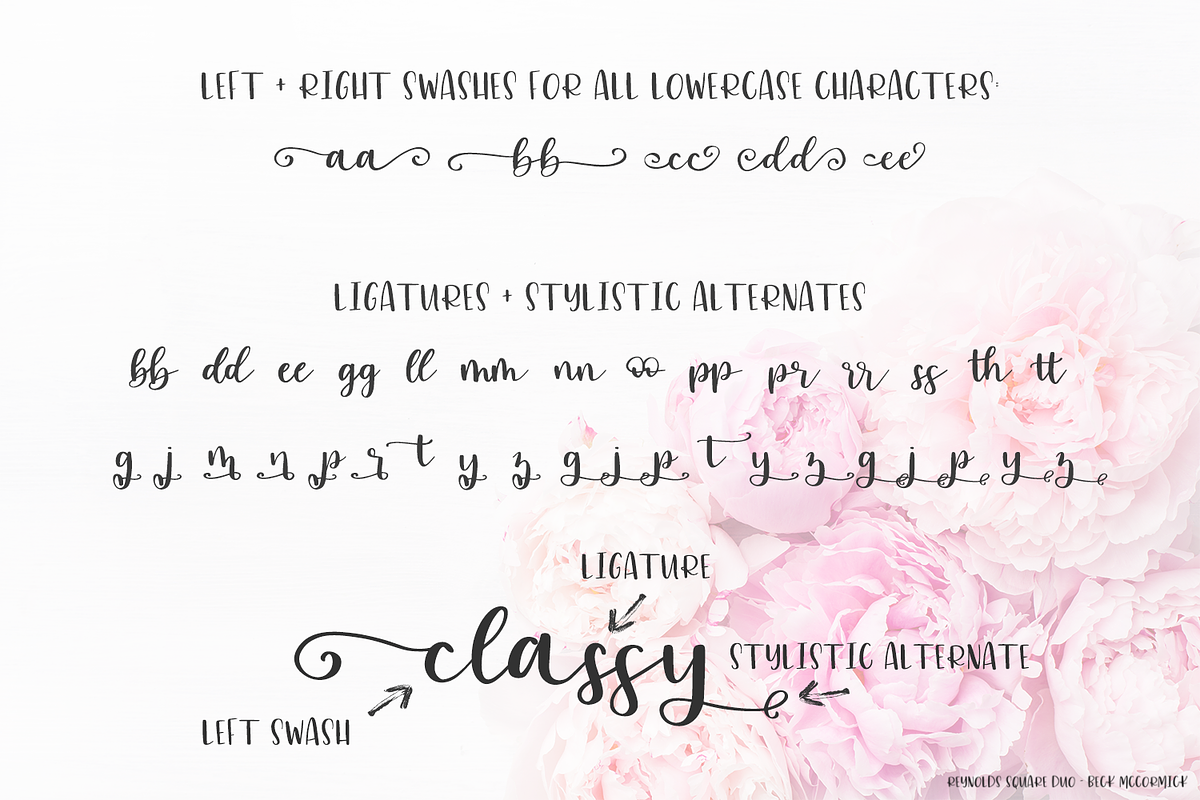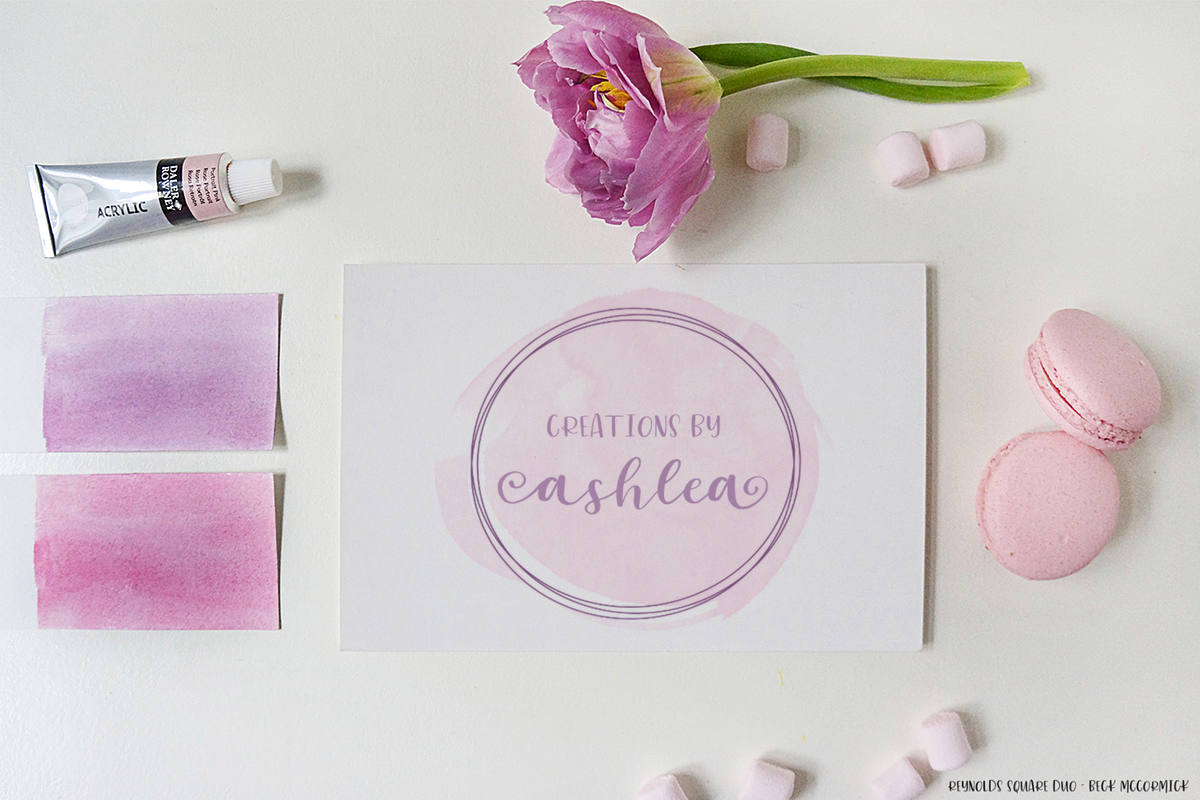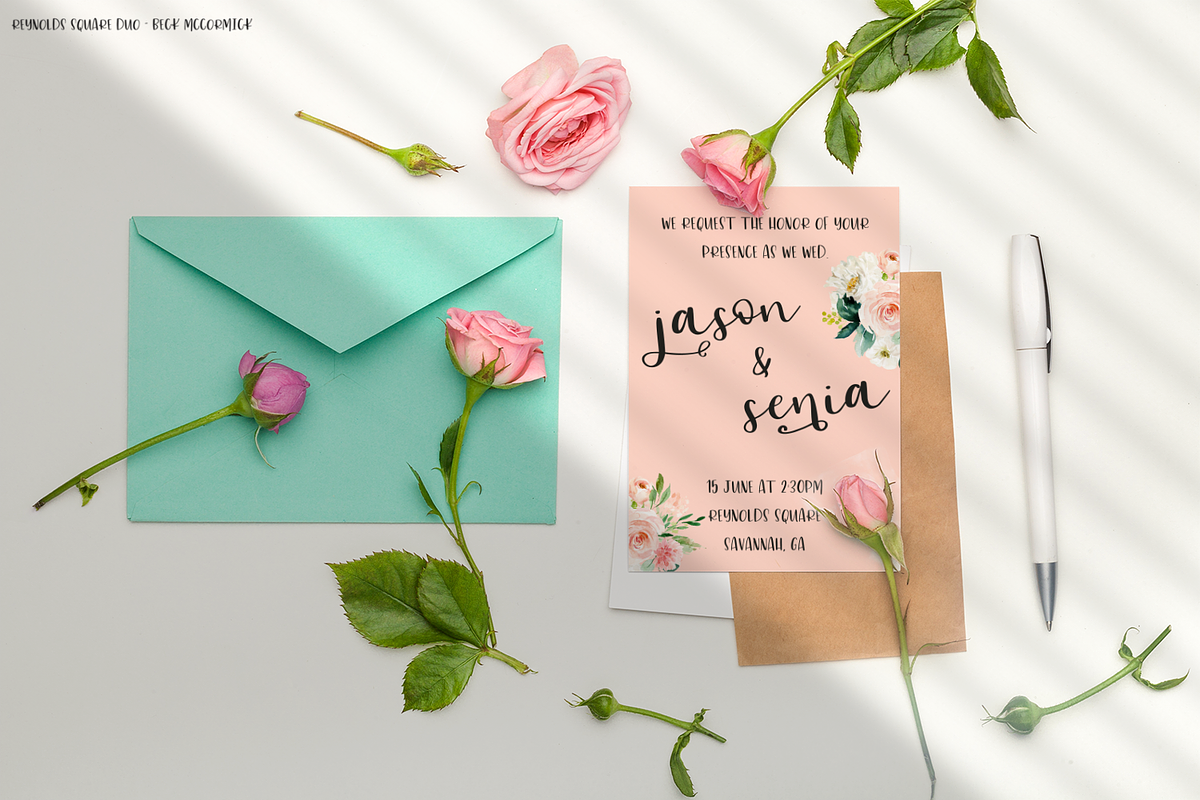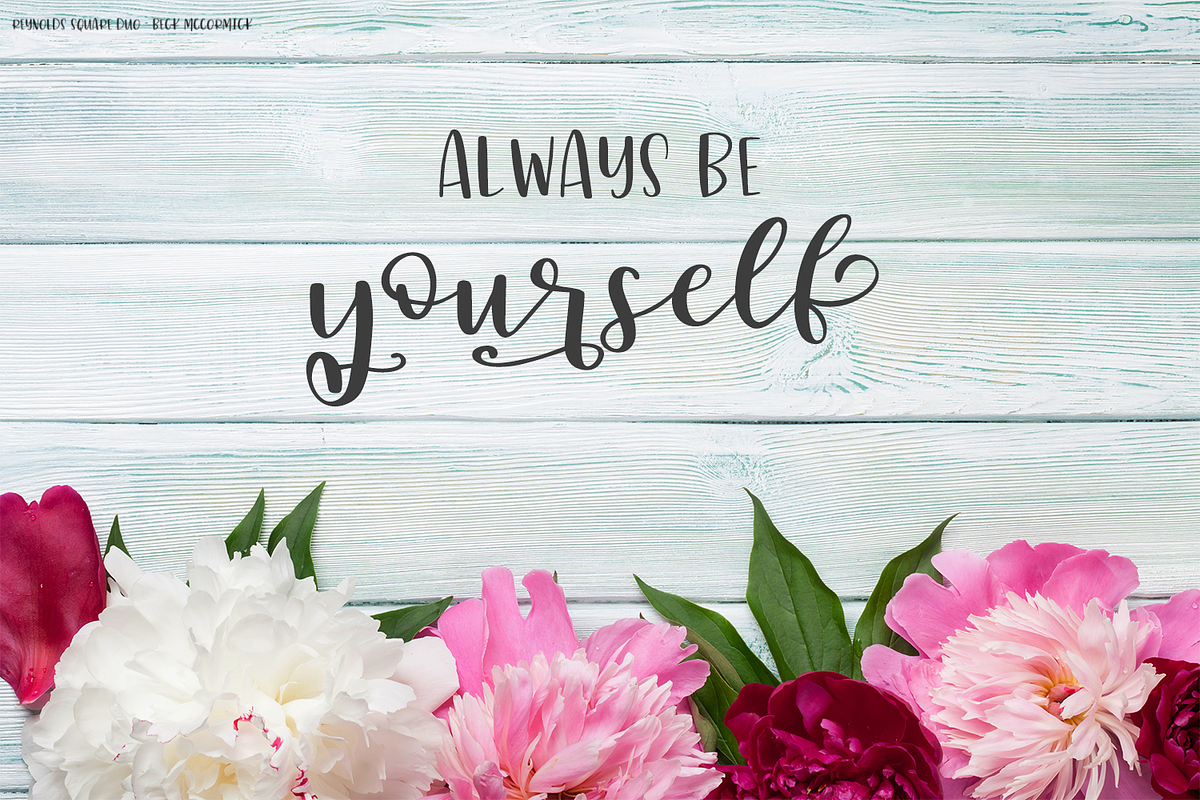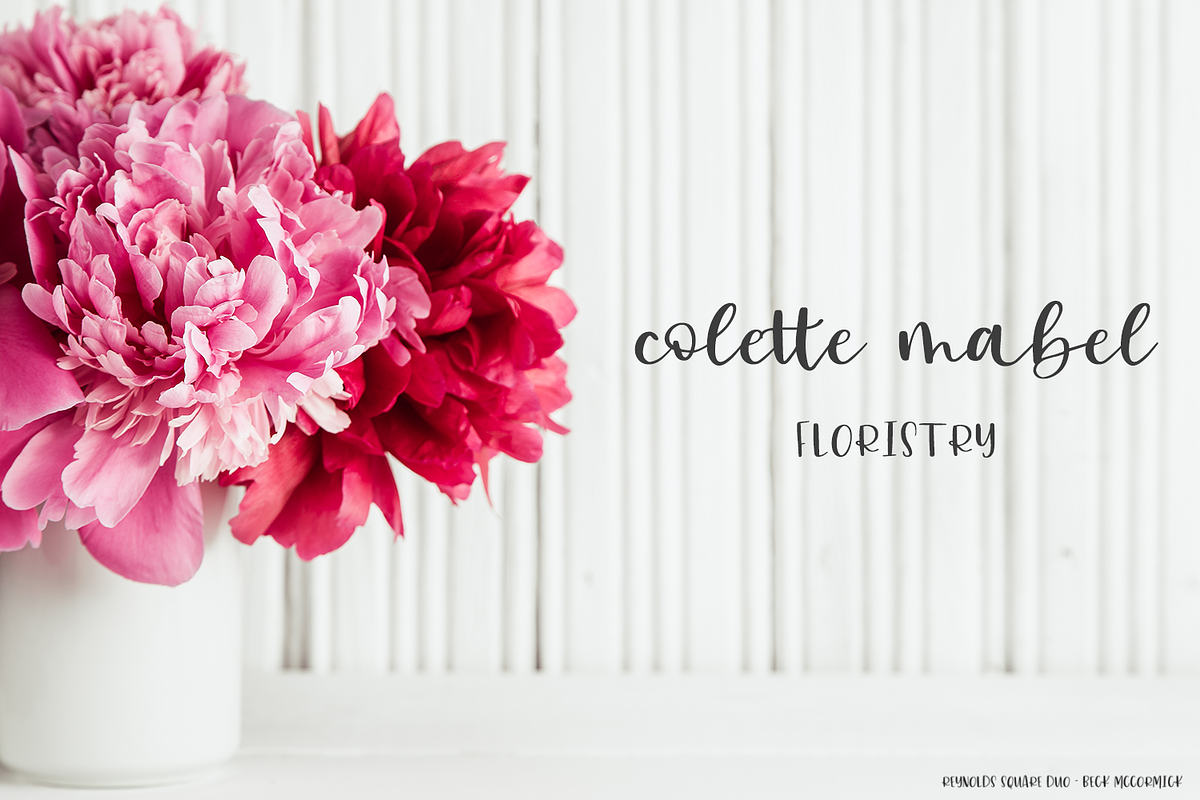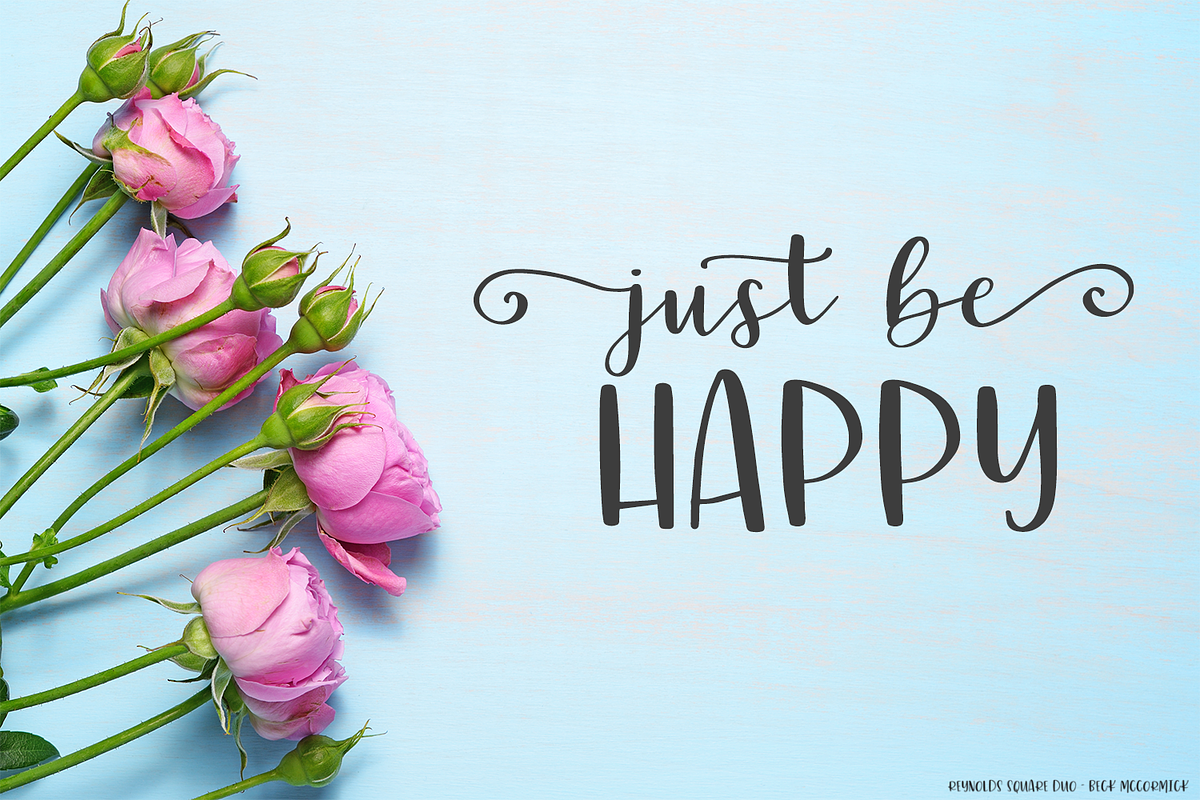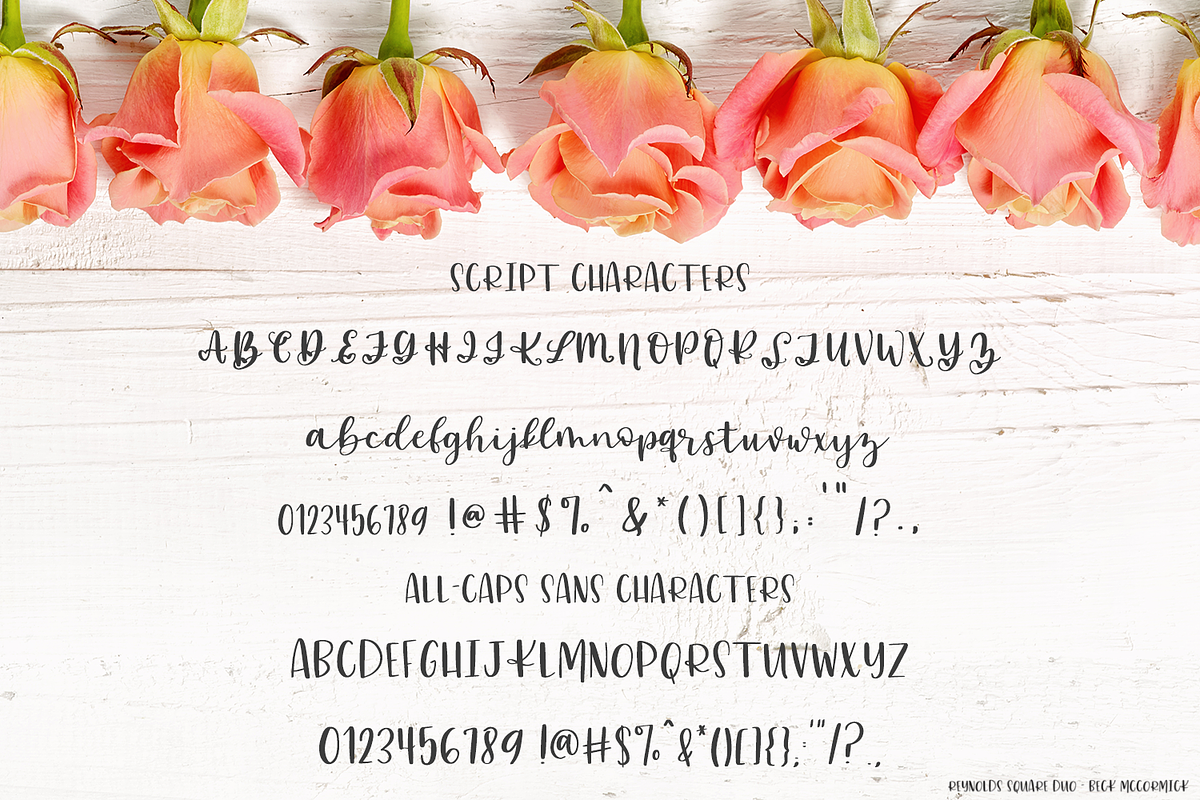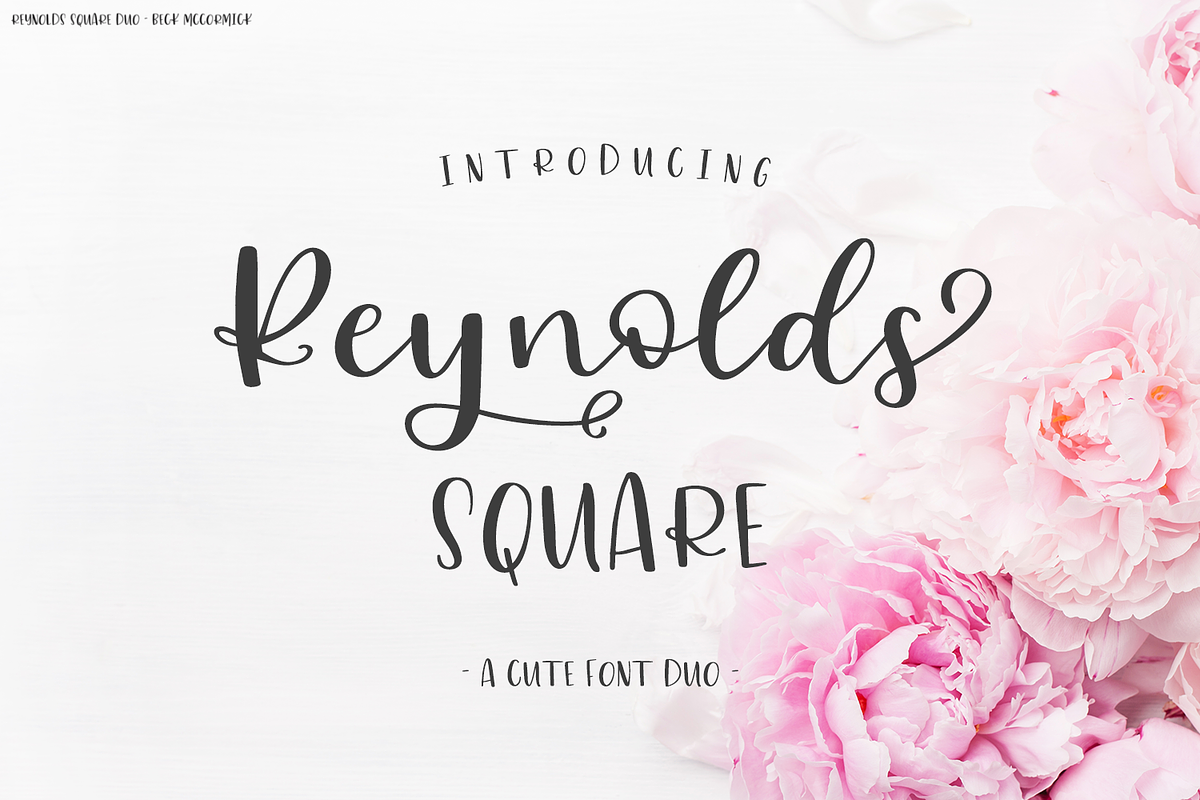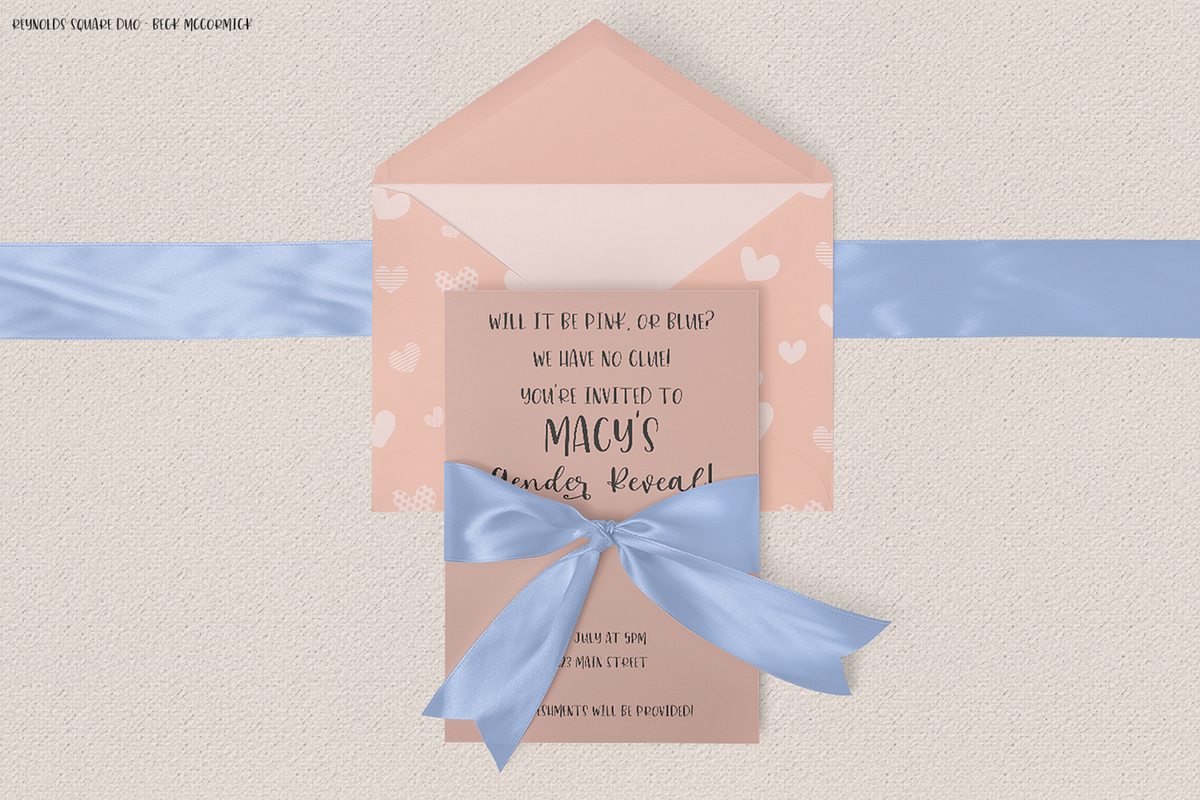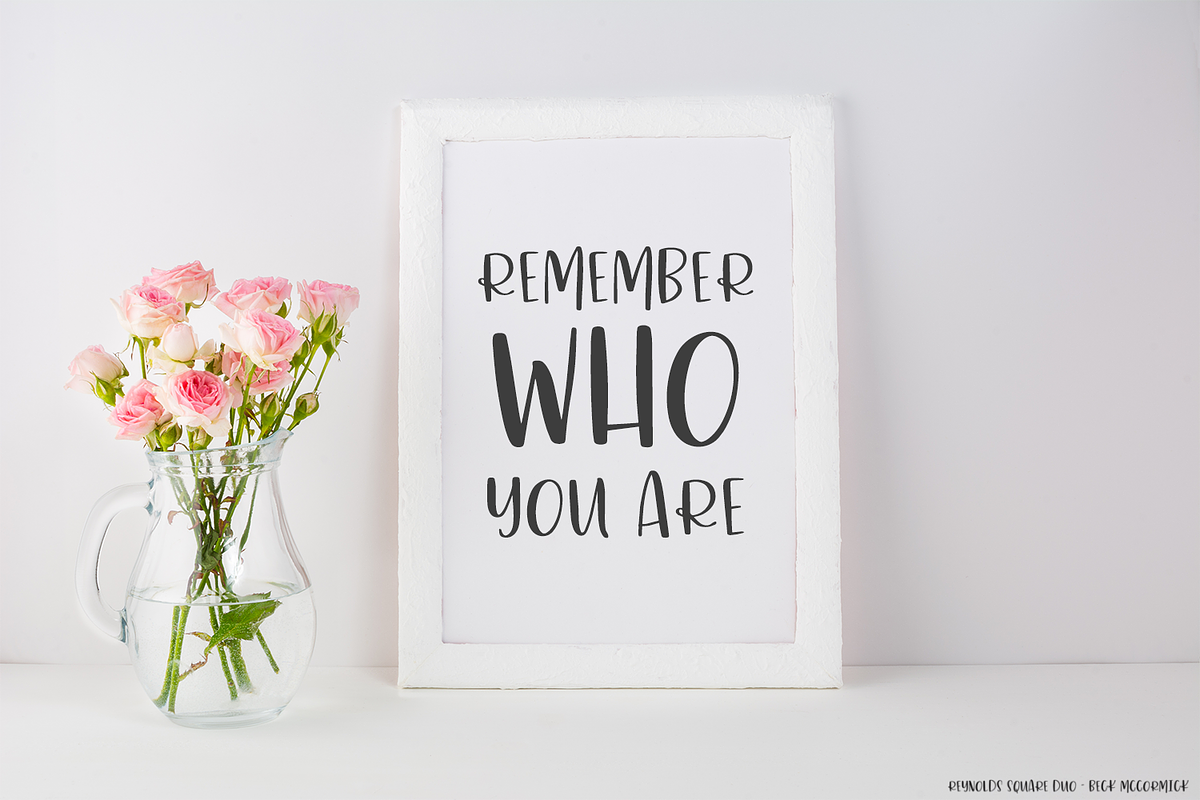
Reynolds Script and Sans Duo
Introducing Reynolds Square, a lovely new font duo featuring a feature-rich bounce calligraphy script font, and a perfectly paired all-caps sans font. It’s all you’ll ever need for a variety of projects.
Reynolds Square is best for:
- feminine logos + branding
- wedding invitation suites, as well as save the dates or wedding branding
- beautiful quote graphics for social media
- header elements that need a feminine touch
- other design projects that need a handwritten, calligraphy-style look like greeting cards
Reynolds Square Script includes:
- full upper + lowercase characters
- numbers + punctuation
- Western European Language Support
- 10 different initial form + end form swashes (5 initial, 5 end) for a total of 260 additional characters
- 20 flourished alternate characters
- 14 common ligatures
- PUA-encoding
Reynolds Square Sans includes:
- full uppercase characters
- numbers + punctuation
- Western European Language Support
- PUA-encoding